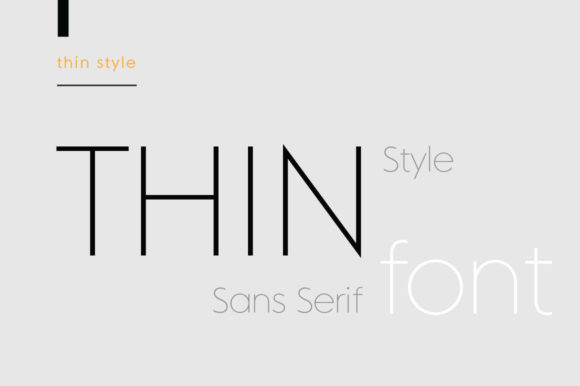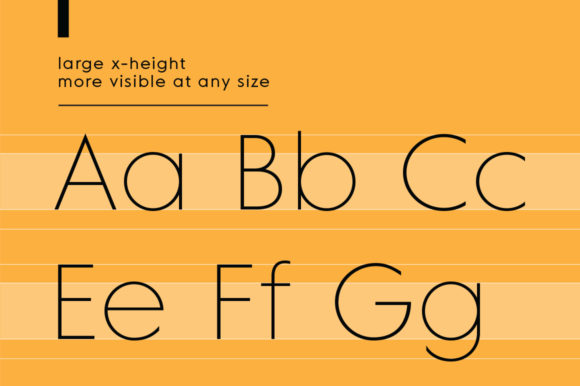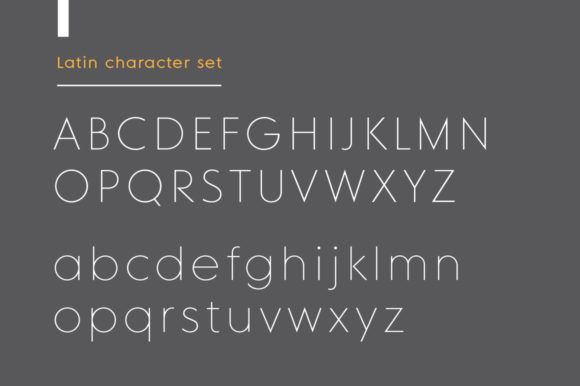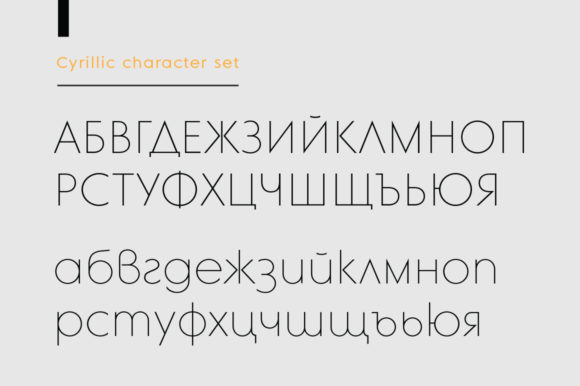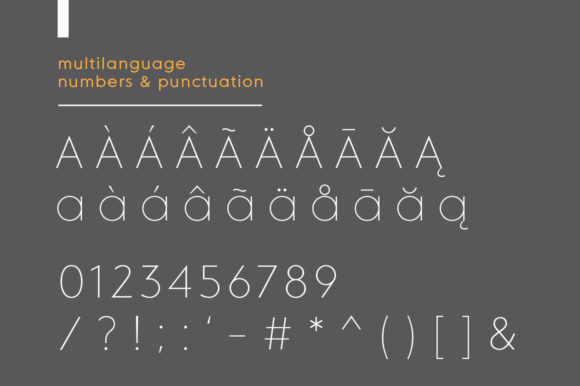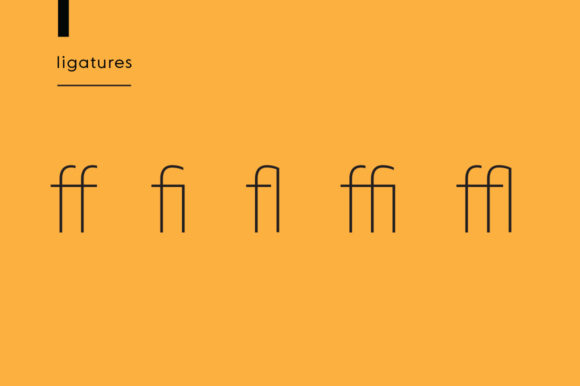
Introduction to MD Grotesque Thin Font
You’re sitting in front of your computer, staring at a blank canvas, trying to bring your creative project to life. The words on your screen seem to be jumbled together, but you know exactly what you want to convey. The perfect font can make all the difference, elevating your design from good to great.
That’s where MD Grotesque Thin Font comes in – a sans serif font that’s as sleek as it is readable. Its high-quality design makes it a valuable resource for designers, perfect for projects where clarity is key. And the best part? It’s available for a free download, making it an accessible design resource for anyone looking to take their work to the next level.
With its transparent background and clean lines, MD Grotesque Thin Font is an ideal choice for a variety of creative projects, from brochures to websites and beyond.
Key Features of MD Grotesque Thin Font
- High-quality sans-serif font ideal for creative projects requiring a modern and clean design aesthetic.
- Thin weight font with a transparent background, perfect for overlaying on images or using as a design resource.
- Designed to be highly legible at a wide range of resolutions, making it suitable for use in various design applications.
- Part of the MD Grotesque font family, offering a range of weights and styles to suit different design needs.
- Accompanied by a comprehensive character set, including uppercase and lowercase letters, numerals, and punctuation marks.
Honest Review: MD Grotesque Thin Font
I recently had the chance to work with the MD Grotesque Thin Font, and I must say, it’s a great addition to my design resource arsenal. The font is sleek and modern, making it perfect for creative projects that require a touch of sophistication.
One of the things that works well with this font is its high quality. The lines are crisp, and the text is easy to read, even at smaller font sizes. ✨ I also appreciate that it’s a free download, making it accessible to designers of all levels.
Some of the key features of the MD Grotesque Thin Font include:
- High-quality design with transparent background
- Sleek and modern aesthetic, ideal for creative projects
- Available in various weights and styles
However, there are a few limitations to consider: ⚠️ The font may not be suitable for body text due to its thin weight, and it may not be as versatile as some other fonts on the market.
Overall, I’m impressed with the MD Grotesque Thin Font, and I would definitely recommend it to designers looking for a high-quality, modern font for their creative projects.
MD Grotesque Thin Font is commonly used in creative projects, such as logos, brochures, business cards, and presentations. Its high quality and modern design make it an ideal choice for any design project that requires a clean and professional look.
The MD Grotesque Thin Font is a TrueType font, which is a widely supported font format. It has a character set that includes Latin, Cyrillic, and Greek alphabets, making it suitable for a wide range of languages. The font also includes ligatures and kerning, which help to improve the overall readability and aesthetics of your design.